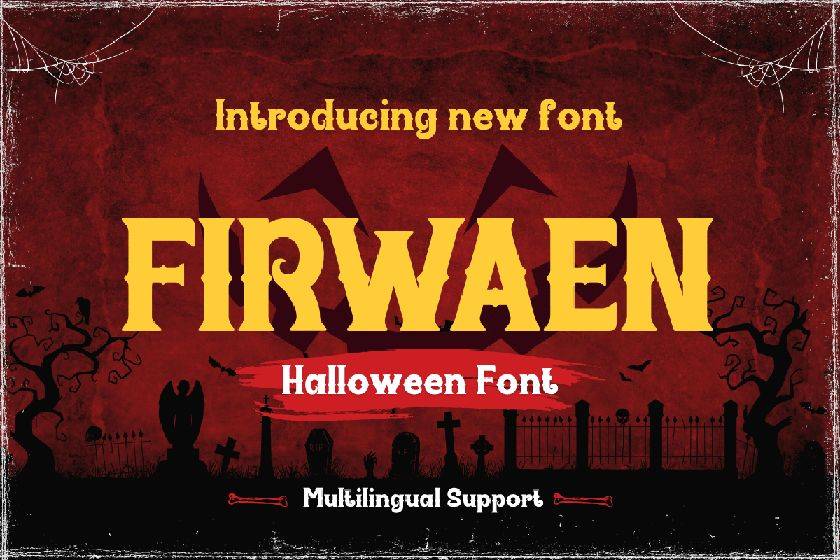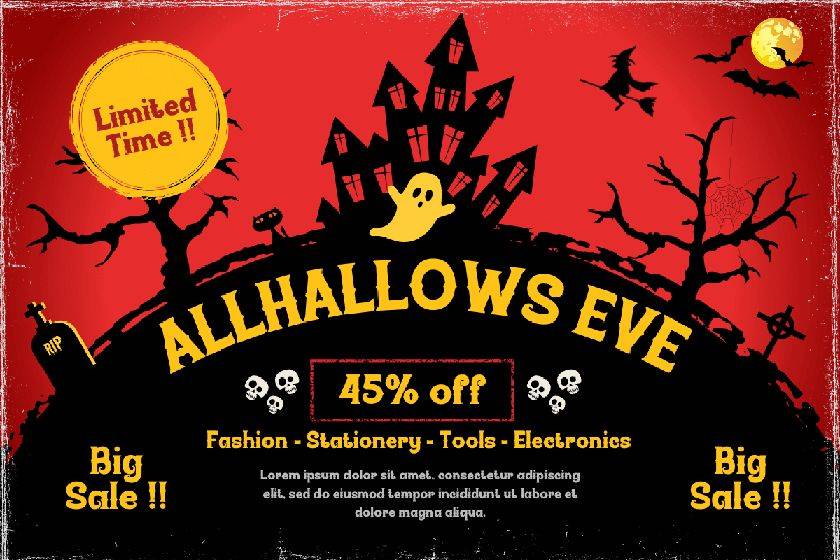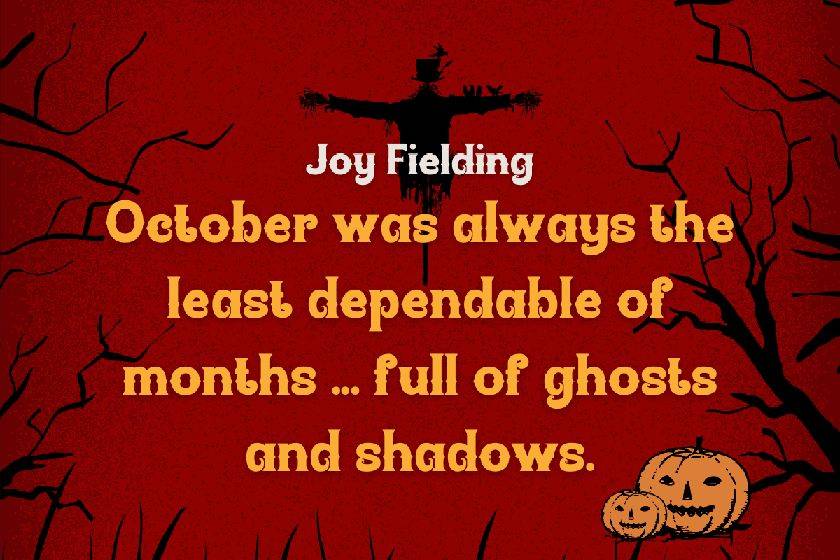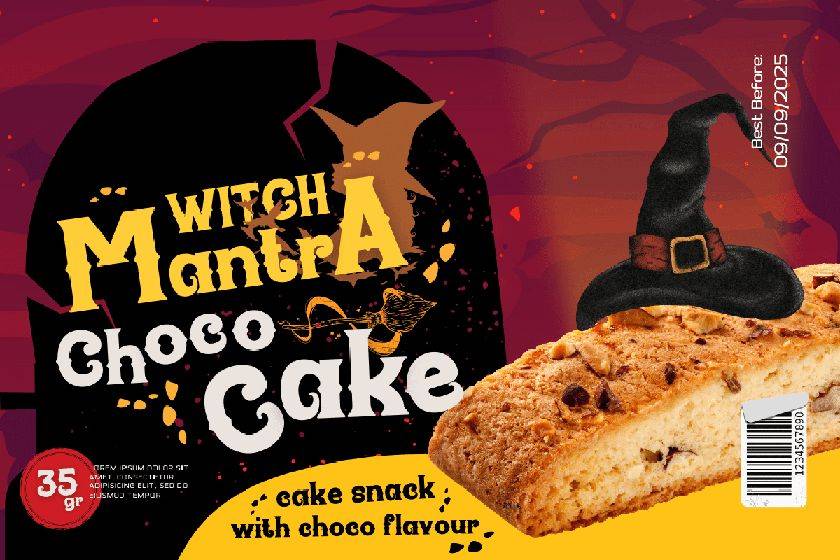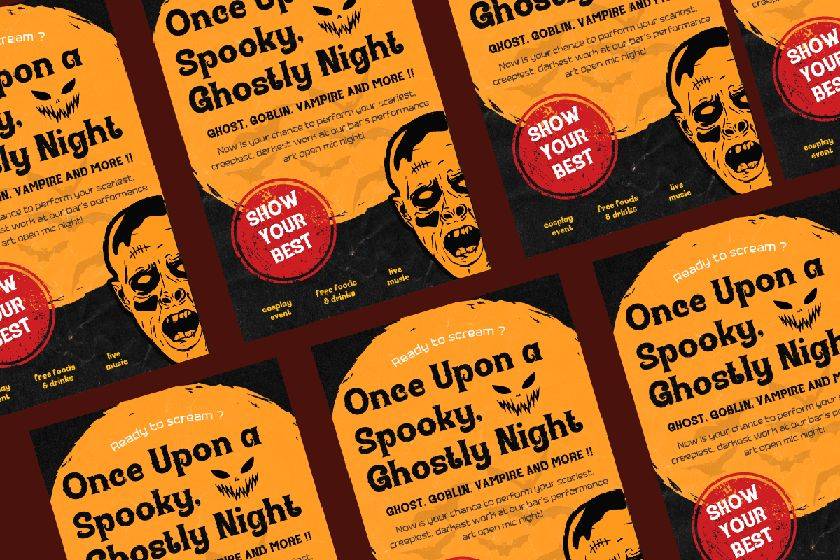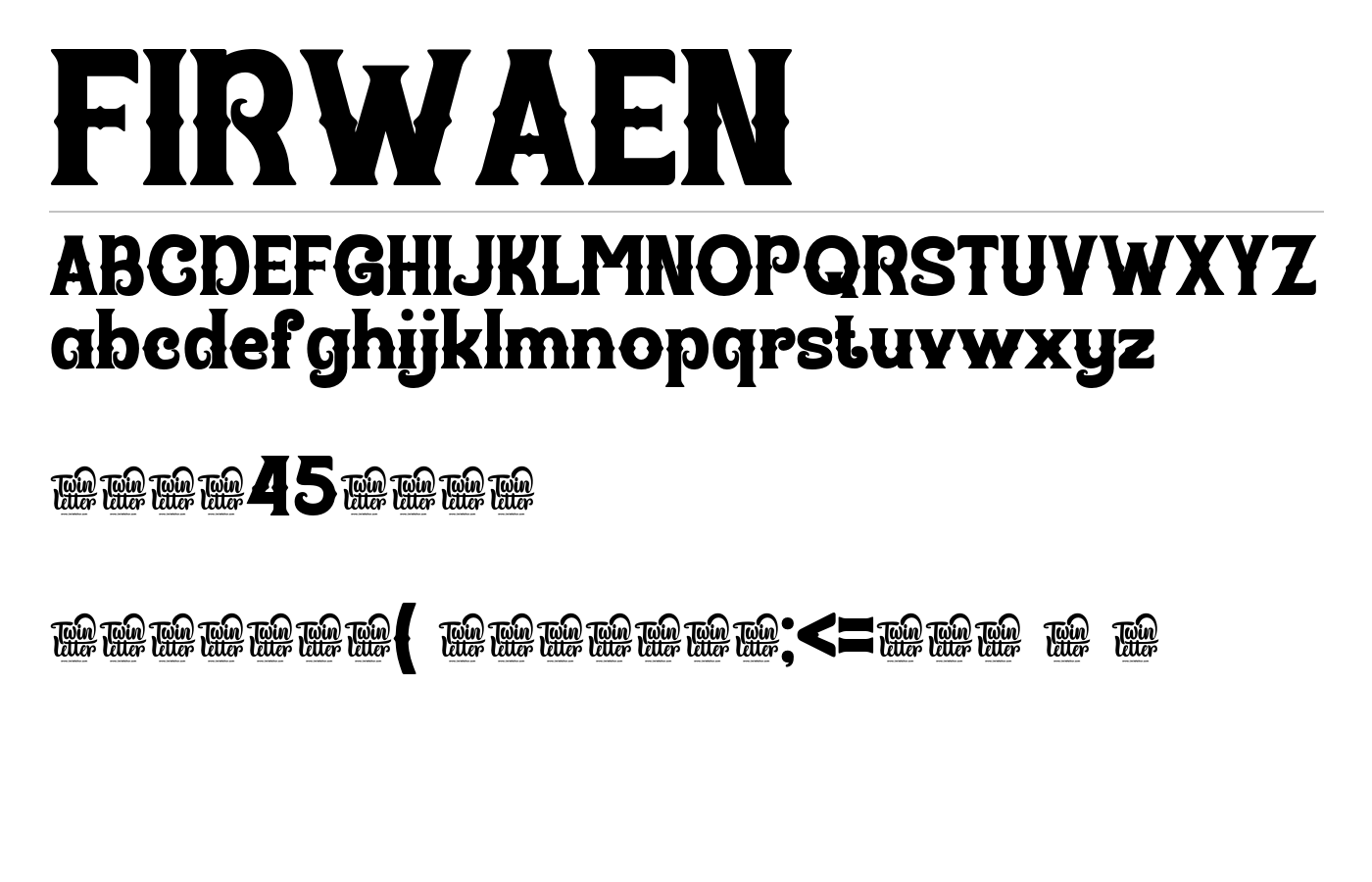
Firwaen is a bold slab serif font with strong, blocky letterforms that blend vintage charm with a playful edge. It features noticeable contrast between thick and thin strokes and distinctive bracketed serifs, making it perfect for eye-catching headlines, posters, and branding that needs a touch of retro character with a confident, modern feel. This font stands out in display settings where bold impact and unique style are key.
Firwaen Font
About Firwaen Font